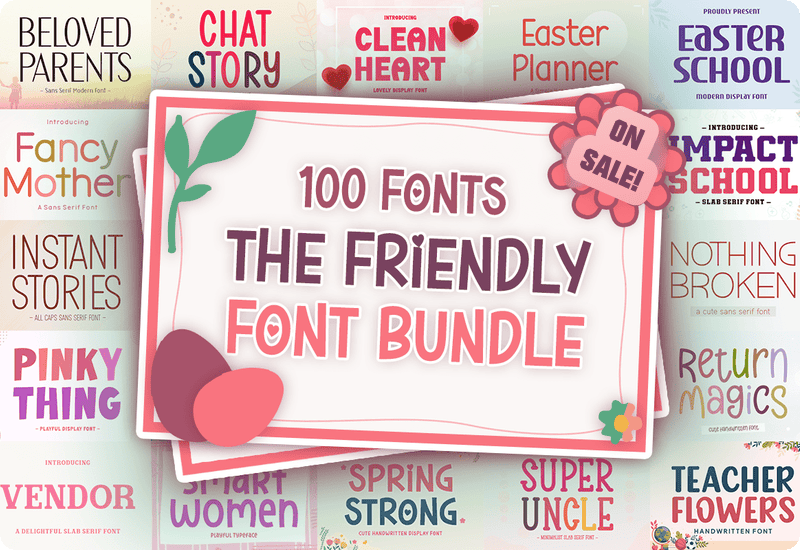
Unleash Your Creativity with The Friendly Font Bundle – 100 Unique Fonts for Limitless Possibilities
The Friendly Font Bundle is a remarkable collection of 100 stunning fonts designed to elevate your creative projects to new heights. Whether you are a graphic designer, content creator, or small business owner, this bundle offers a versatile selection of premium-quality fonts that cater to every style and purpose. From playful and decorative fonts to elegant and professional typefaces, the Friendly Font Bundle has everything you need to make your designs stand out.
Why Choose The Friendly Font Bundle?
The Friendly Font Bundle is designed to meet the needs of designers, creators, and businesses looking for diverse and impactful fonts. With a value of $2,075, this bundle is packed with incredible fonts that can be used across various projects, including branding, logos, social media graphics, print designs, digital content, invitations, and more.
Here’s what makes The Friendly Font Bundle a must-have for every creative:
- 100 Premium Fonts in OTF & TTF Formats: Enjoy a versatile range of fonts that cater to all creative needs, from decorative and script fonts to bold display and sans-serif typefaces.
- High-Quality Designs for Any Project: Elevate your designs with professional fonts optimized for print and digital use.
- Unlimited Creative Potential: Mix and match fonts to create eye-catching logos, stylish branding, artistic invitations, and more.
100 Premium fonts included in The Friendly Font Bundle:
- Diamond Cartoon Display Font
- Forever Creative Sans-Serif-Schriftarten Schriftart
- Instant Stories Sans Serif Font
- Never Lover Slab-Serif-Schriftarten Schriftart
- Mother Modern Sans Serif Font
- Wait Here Slab Serif Font
- Family United Slab Serif Font
- Patriotic Awesome Display Font
- Nothing Broken Sans Serif Font
- Neon Triper Decorative Font
- Could Bee Decorative Font
- Graduation Awards Display Font
- Retro Count Display Font
- Batnight Halloween Blackletter Font
- Hustle Kindness Fuentes Slab Serif Fuente
- Impact School Slab Serif Font
- Wonderful Spring Script & Handwritten Font
- Beat Hero Display Font
- Love Hits Slab Serif Fonts Font
- Spring Strong Display Font
- Notes Charm Script & Handwritten Font
- Easter Planner Fontes Script Fonte
- Anatomy Romantic Fuentes Caligráficas Fuente
- Valentine Farmhouse Script & Handwritten Font
- Beloved Parents Sans Serif Font
- Fontkren Display Font
- Return Magics Fuentes Caligráficas Fuente
- Beautiful Thinking Display-Schriftarten Schriftart
- Awesome Forever Skript-Schriftarten Schriftart
- Howine Fuentes Sans Serif Fuente
- Teacher Flowers Script & Handwritten Font
- Mister Shine Skript-Schriftarten Schriftart
- Joyful Promise Script & Handwritten Font
- Welcome Teachers Display Font
- Over Reach Display Font
- Fancy Mother Sans Serif Font
- Modern Culture Skript-Schriftarten Schriftart
- Bunny Easter Decorative Font
- Easy Lucky Slab Serif Font
- Goodbye Valentine Display Font
- You Can Sans-Serif-Schriftarten Schriftart
- Romantic Comeback Serif Font
- Charming Birthday Display Font
- Dream Shakes Script & Handwritten Font
- Space Unicod Fuentes Decorativas Fuente
- Chat Story Sans Serif Font
- Super Busy Slab Serif Font
- Silent Rabbit Script & Handwritten Font
- Why Notes Script & Handwritten Font
- Match Notes Script Fonts Font
- Kindergarten Education Sans Serif Font
- Super Uncle Slab Serif Font
- Yellow Beach Sans Serif Font
- Mango Passion Sans Serif Font
- Vendor Slab Serif Font
- Father Leader Sans Serif Font
- Madam Butterfly Skript-Schriftarten Schriftart
- Varsity Awesome Fontes de Exibição Fonte
- Mighty Hopes Display Font